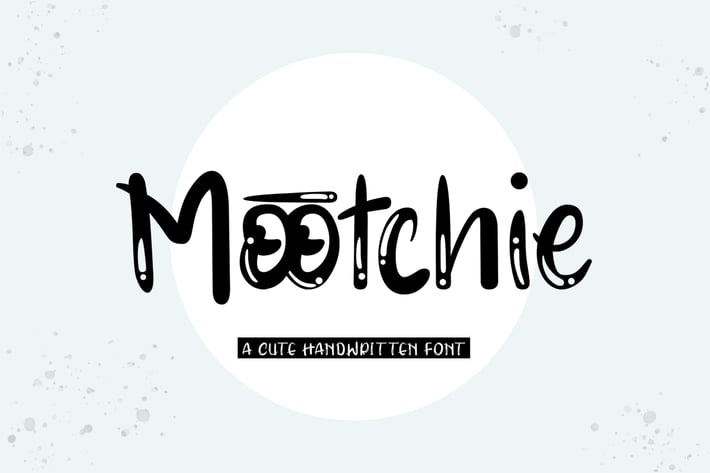
Mootchie - A Cute Handwritten Font
Mootchie is a playful and charming handwritten font designed to bring a dose of cuteness and joy to your design projects. With its quirky curves and cheerful letterforms, Mootchie is perfect for adorable invitations, fun posters, playful branding, and colorful packaging. This font captures the essence of youthful creativity, ensuring your work stands out with a delightful and whimsical style.
Crafted with a lighthearted touch, Mootchie features bubbly and friendly characters that offer excellent readability and visual appeal. Its cute and whimsical design makes it ideal for display purposes, providing a warm and inviting presence. The font’s versatility allows it to adapt seamlessly to various design contexts, from digital screens to printed materials, making it a valuable asset for any designer aiming to create fun and engaging visuals.
Elevate your design projects with Mootchie, a font that embodies the spirit of playful handwritten charm. Its unique style and adaptability make it an essential addition to any designer’s toolkit for crafting delightful and captivating designs. Enhance your work with Mootchie and experience the joy of cute handwritten typography.